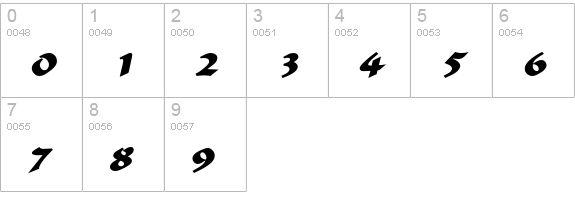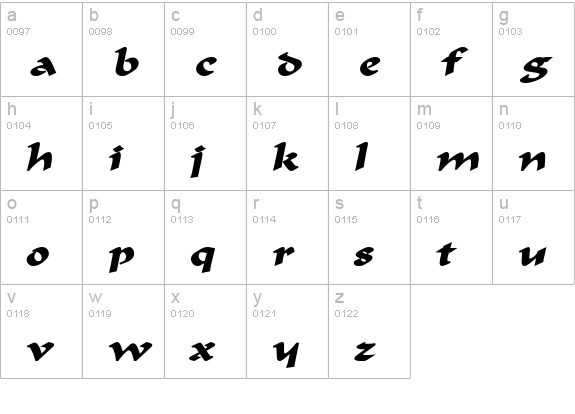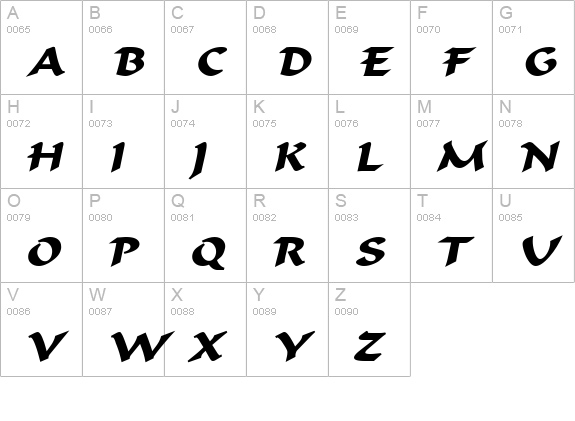
Flat Brush Wide BoldItalic Font Details
Flat Brush Wide BoldItalic is a distinctive, extended-width variant in the Flat typeface family \xE2\x80\x94 well suited to design and typography projects.
The Flat Brush Wide BoldItalic font exudes a modern and bold style with its wide, flat brush strokes and distinct italicized characters. This typeface is perfect for making a statement in design projects that require a touch of sophistication and creativity. The boldness of the font adds a sense of confidence and strength to any text it is applied to. What sets this font apart is not only its unique design but also the fact that it is available for free download at FontsMarket.com. Yes, you read that right - this stunning typeface can be yours at no cost, making it a valuable addition to your font collection without breaking the bank. Don't miss out on the opportunity to enhance your designs with the Flat Brush Wide BoldItalic font, now conveniently accessible for free at FontsMarket.com.